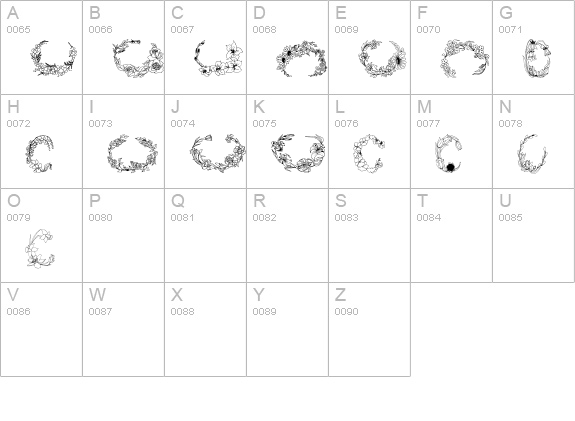
DBL Flower Delight Font Details
Introducing DBL Flower Delight, a whimsical and elegant font that exudes charm and beauty. With delicate floral elements intertwined with graceful letterforms, this font is perfect for adding a touch of sophistication to your projects. Whether you're designing invitations, branding materials, or social media graphics, DBL Flower Delight will surely make a statement. The best part? DBL Flower Delight is available for free download at FontsMarket.com. Now you can easily access this exquisite font and elevate your designs without breaking the bank. Embrace the beauty of DBL Flower Delight and let your creativity bloom!